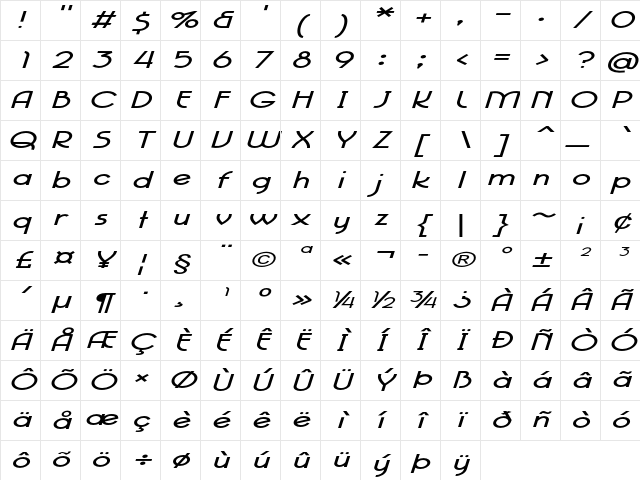
Eiffel Falls Extra-expanded Italic Free Font
Eiffel Falls Extra-expanded Italic
Style: Extra-expanded Italic
Eiffel Falls Family
Eiffel Falls Extra-expanded Italic
Complete Eiffel Falls Extra-expanded Italic glyph index. Displaying only characters natively supported by Eiffel Falls Extra-expanded Italic font.
Design Context for Eiffel Falls
Eiffel Falls is a composed and adaptable typeface that performs quietly and consistently across a wide range of design contexts. The slanted form adds forward momentum and visual energy.
Pro Tip: Use Eiffel Falls for emphasis, pull quotes, and subheadings where its slanted energy can add rhythm to the layout.